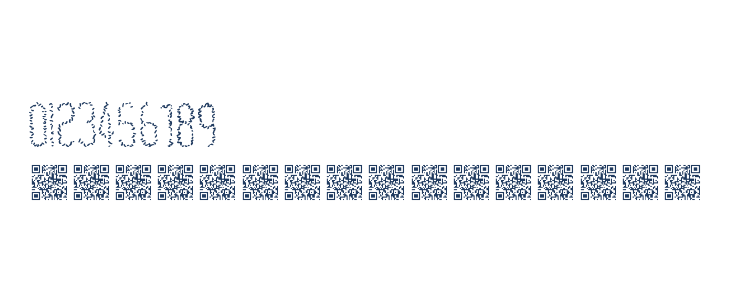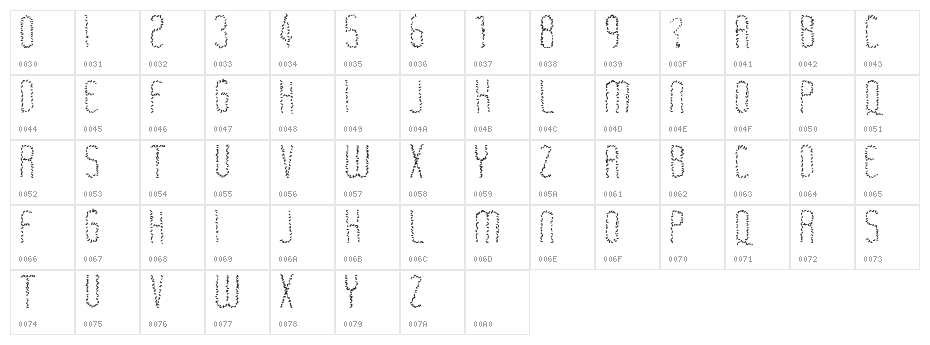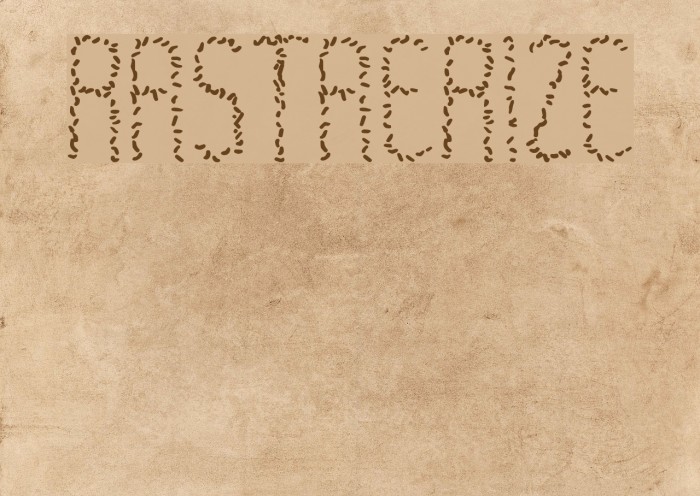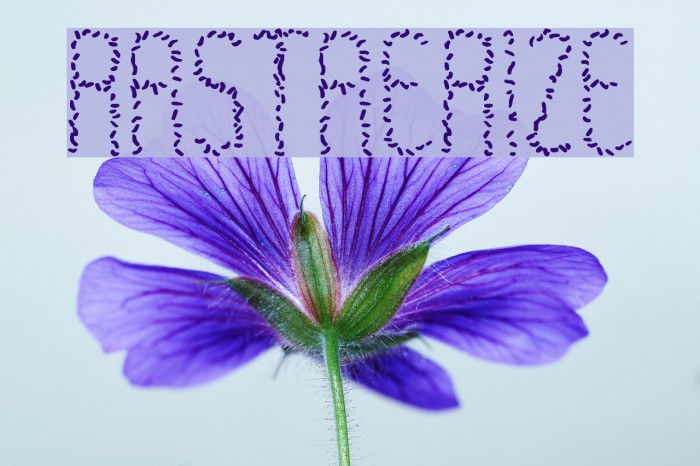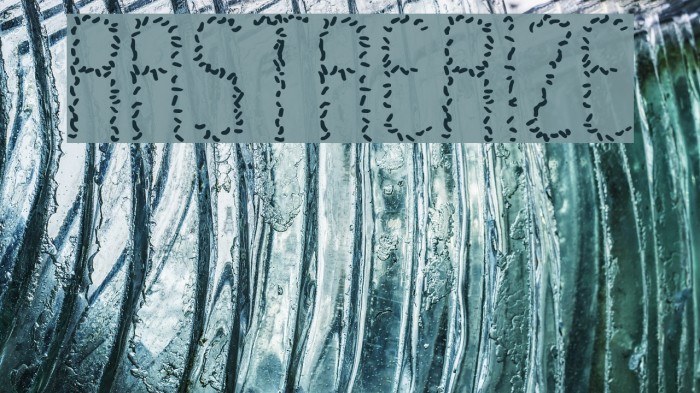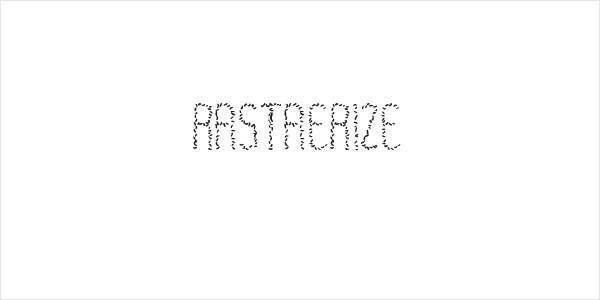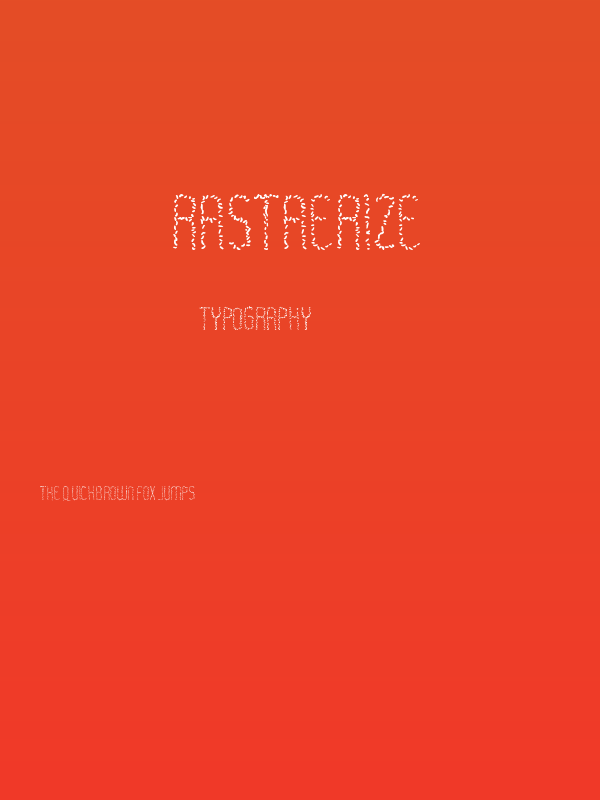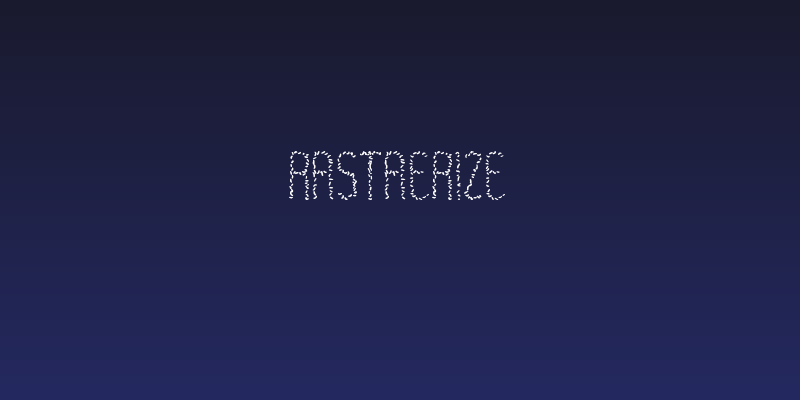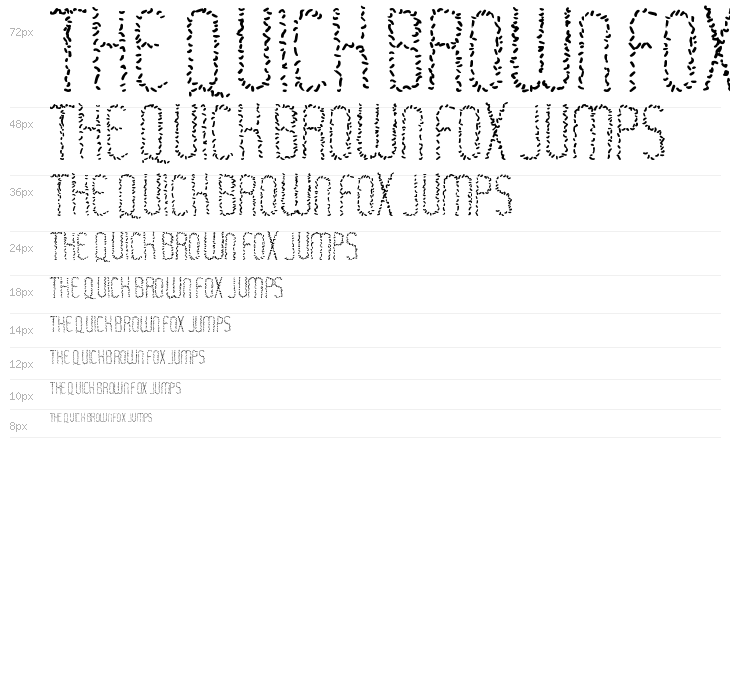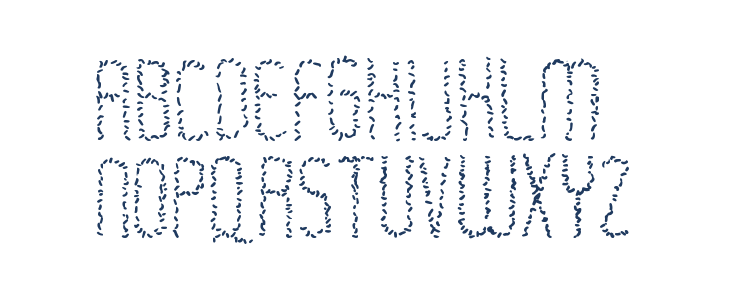
Rastaerize Font
Rastaerize Description
This font features a unique, decorative style with characters formed by a series of small, curved strokes that resemble brush or pen marks. The design gives an impression of movement and texture, making it stand out as a distinctive choice for creative projects. The uppercase and lowercase letters maintain a consistent structure, while the numbers and special characters follow the same stylistic approach. The font's playful and artistic appearance makes it suitable for projects that require a touch of whimsy and creativity.
| Proposed Projects | Ideal for creative projects such as posters, invitations, and branding materials that seek a unique and artistic flair. |